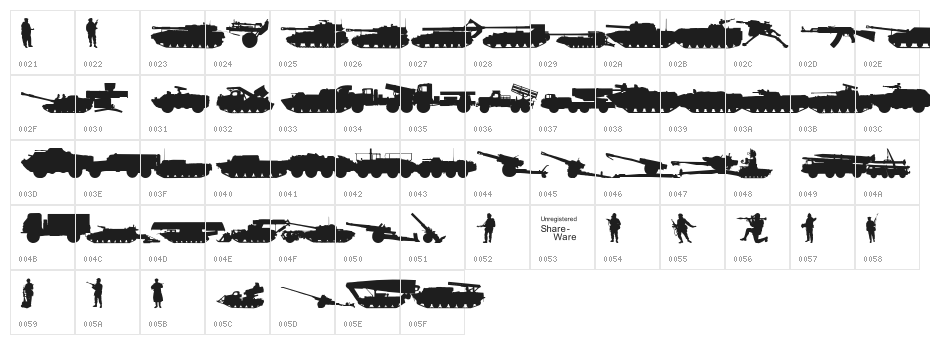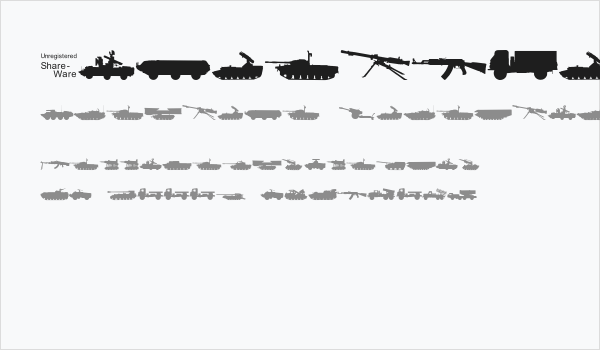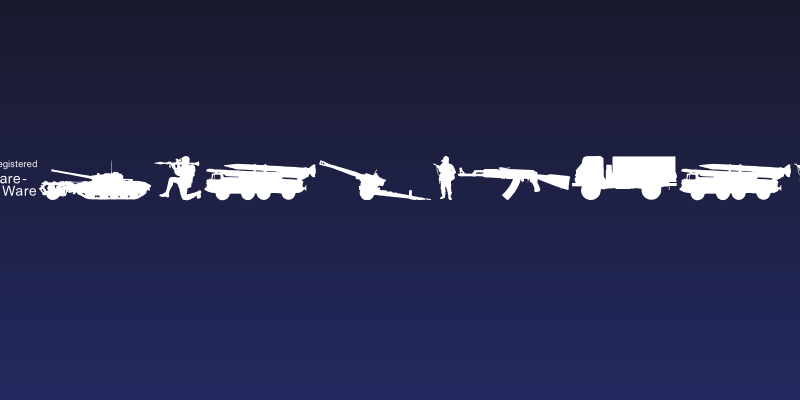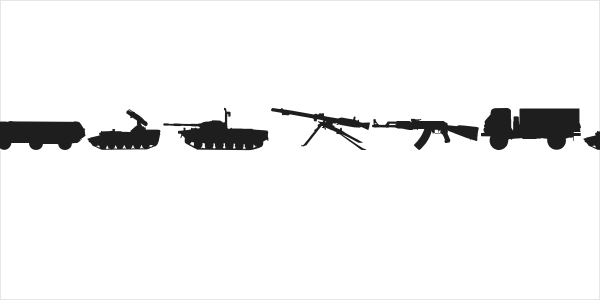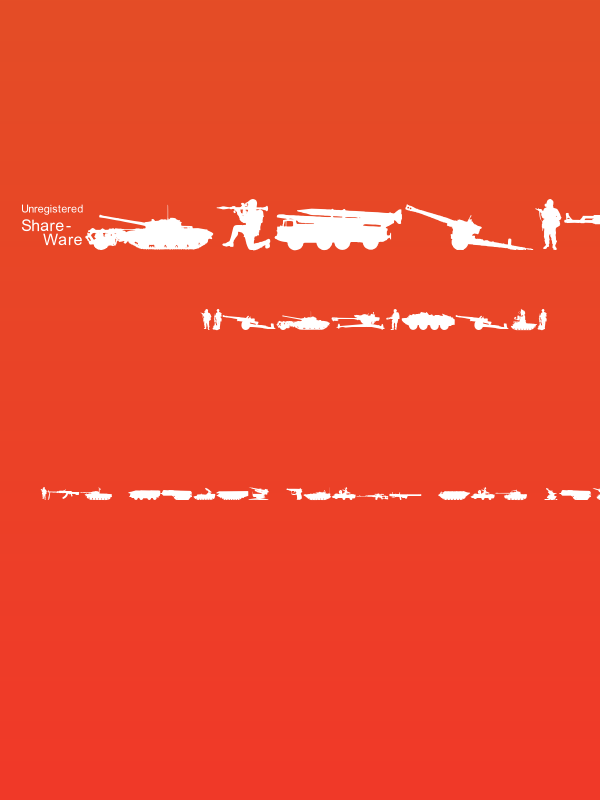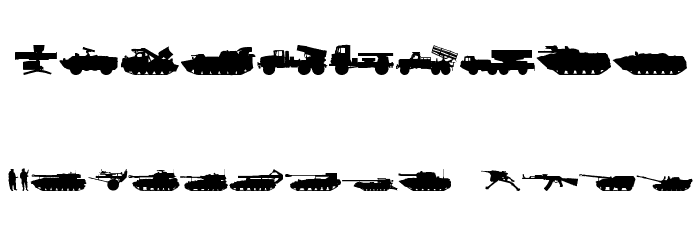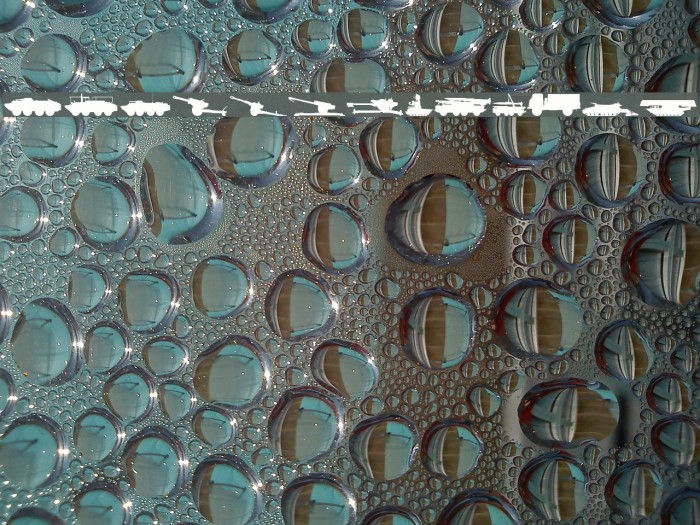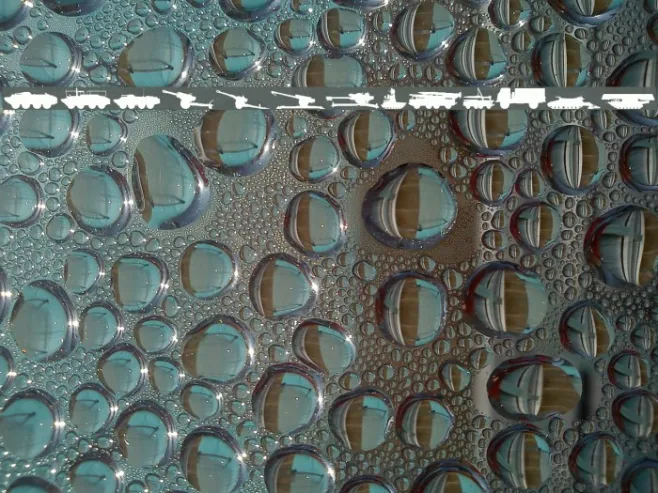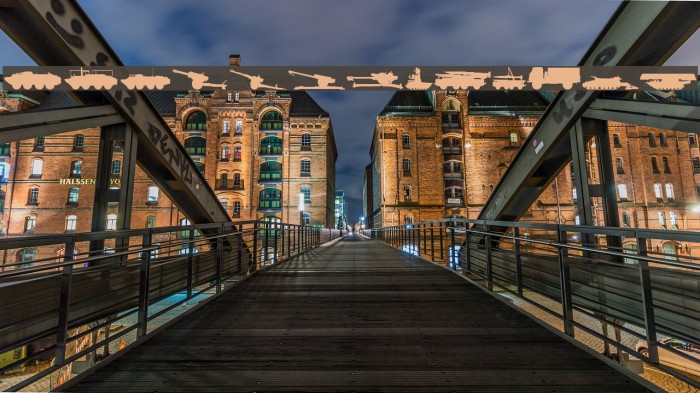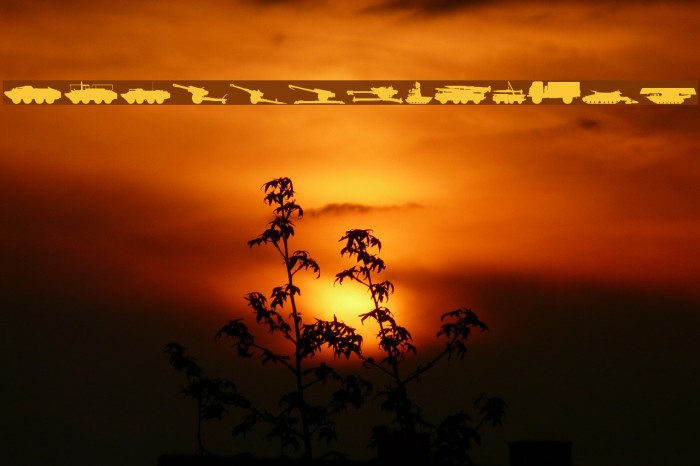
Soviet-Kit Font
Soviet-Kit Description
A decorative display font featuring silhouettes of Soviet-era military vehicles, artillery, soldiers, and weaponry. Each character is represented by a unique, detailed black silhouette, making it highly thematic and visually distinctive.
| Overall Style | Decorative, Thematic, Military |
| Use Case | Headlines, Logos, Themed graphics, Posters |
| Proposed Projects | Posters, historical presentations, themed event materials, video game titles, educational resources, military-themed designs. |